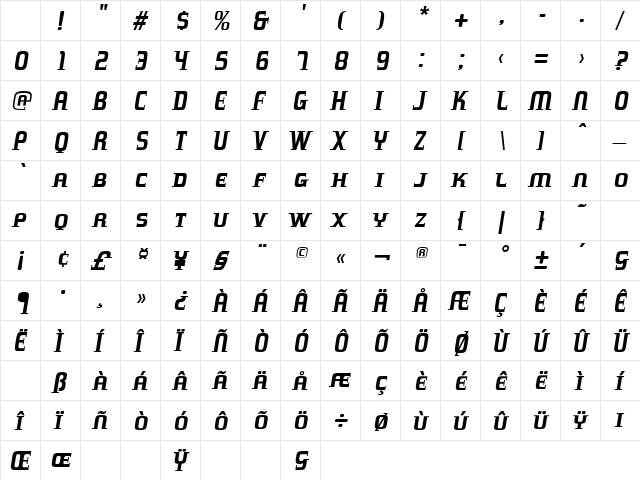
Complete 78London Fall glyph index. Displaying only characters natively supported by 78London Fall font.
78London is a composed and adaptable typeface that performs quietly and consistently across a wide range of design contexts.